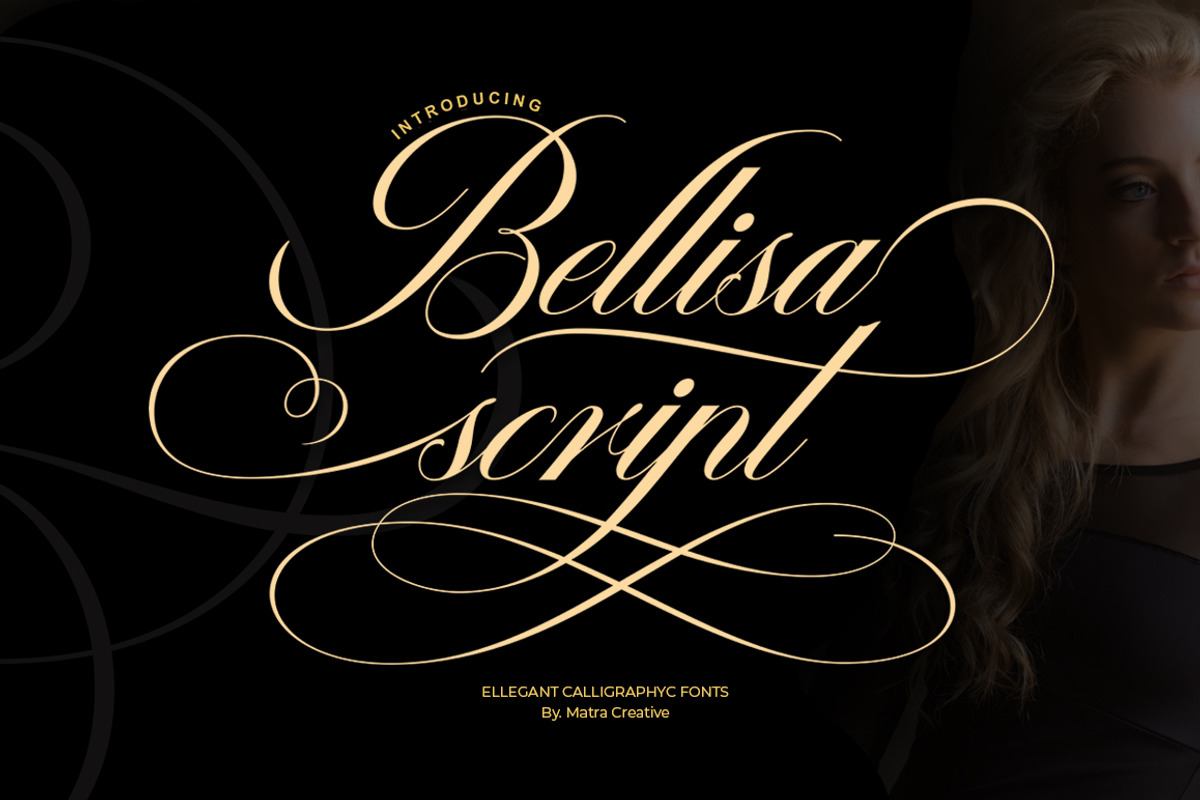
Add elegance and romance to your design with the Bellisa Script Font Free Download — a flowing, graceful script font inspired by modern calligraphy. Perfect for wedding invitations, feminine branding, beauty products, handwritten quotes, and signature logos, Bellisa brings sophistication to every letter.
Its soft curves and stylish ligatures make Bellisa not only beautiful but also highly legible. Whether you're crafting a personal message or building a brand that speaks to emotion and class, this font adds an artistic, heartfelt touch that stands out without trying too hard.